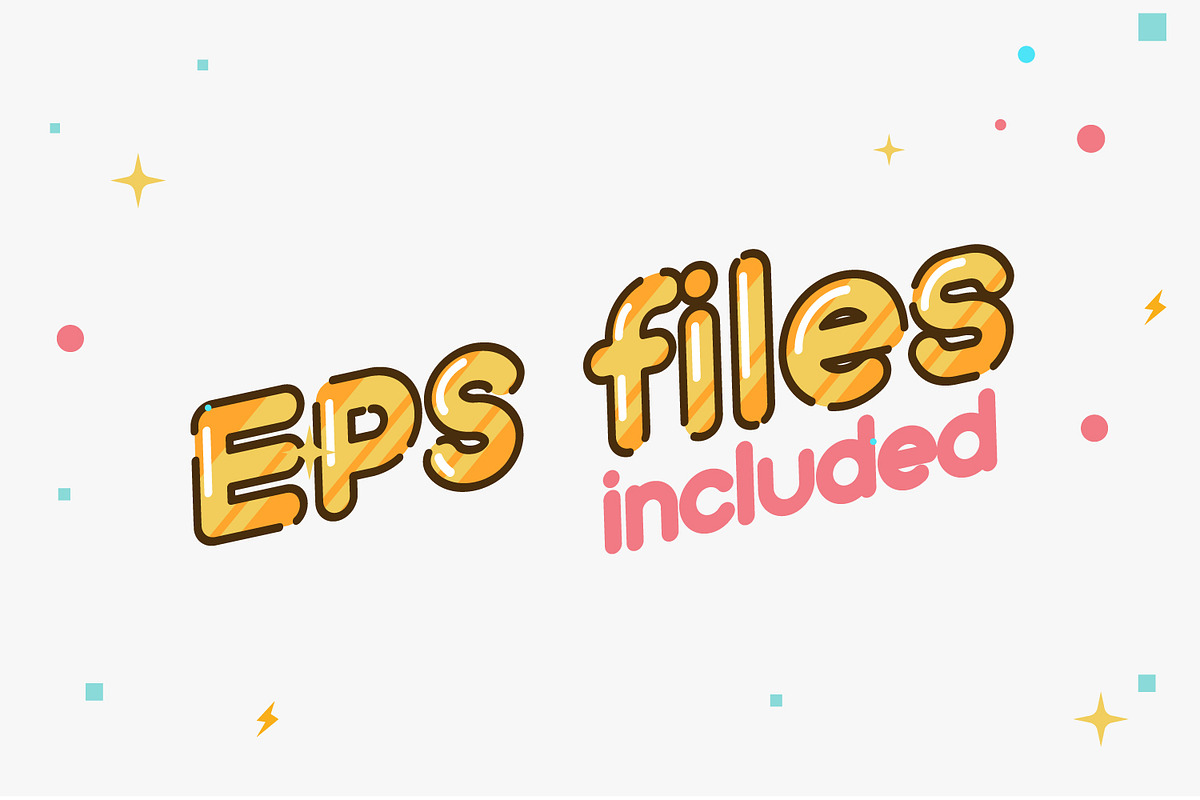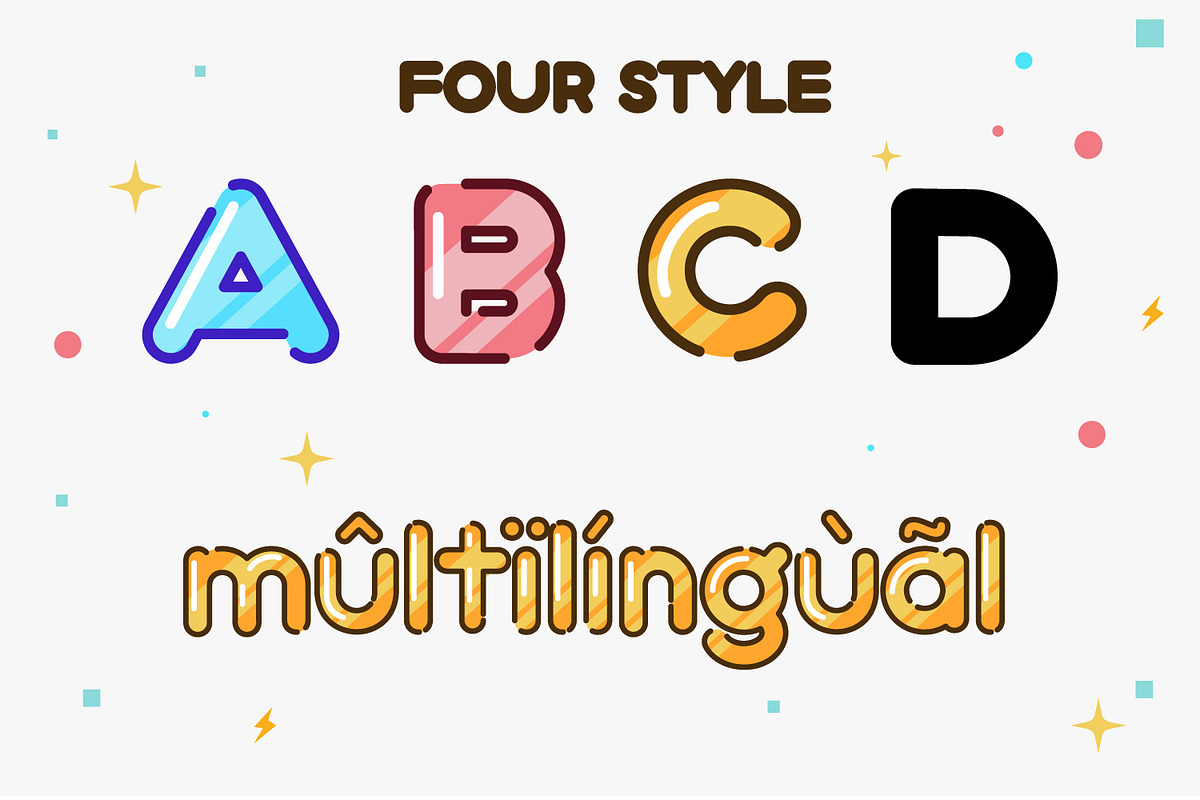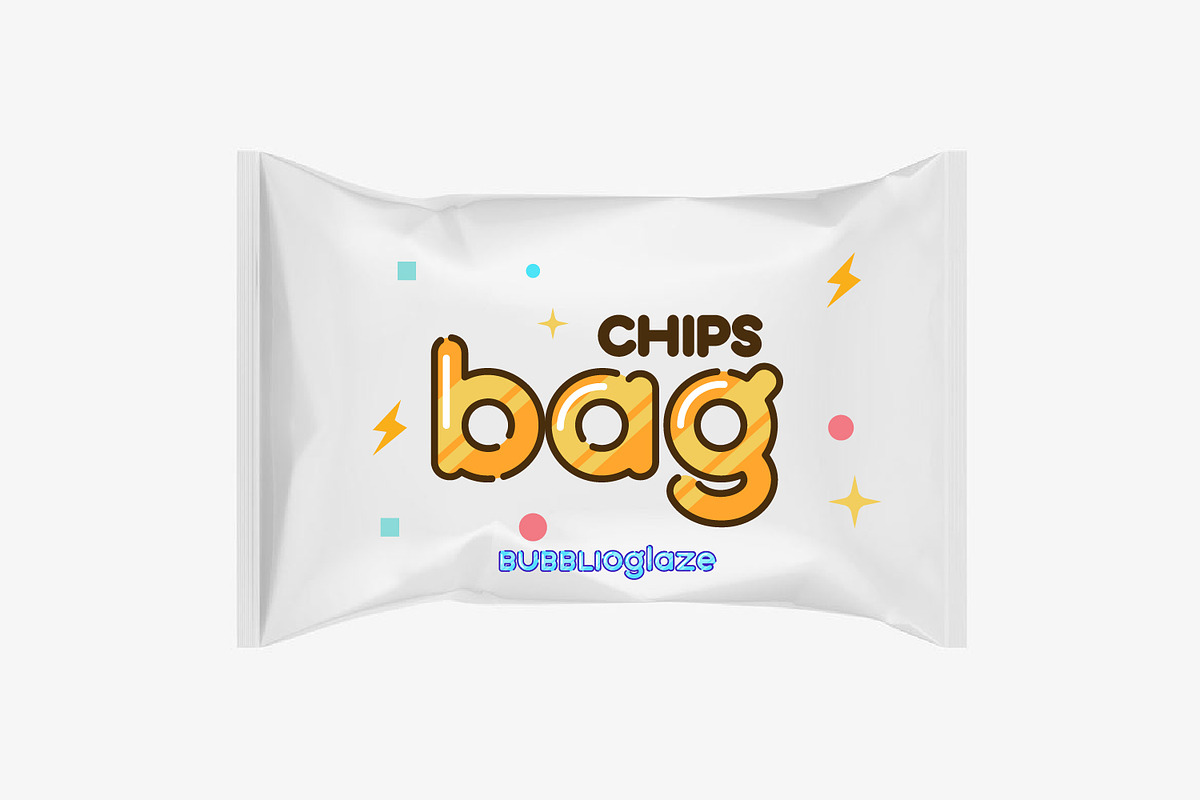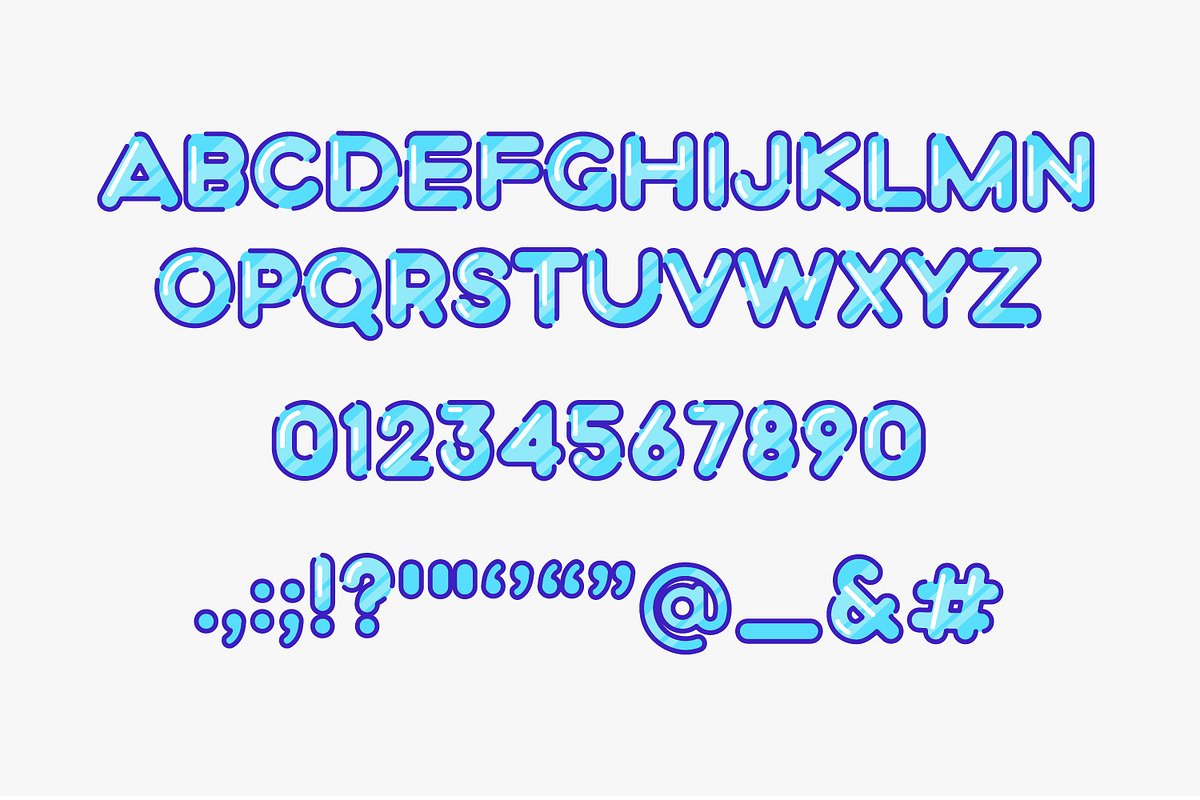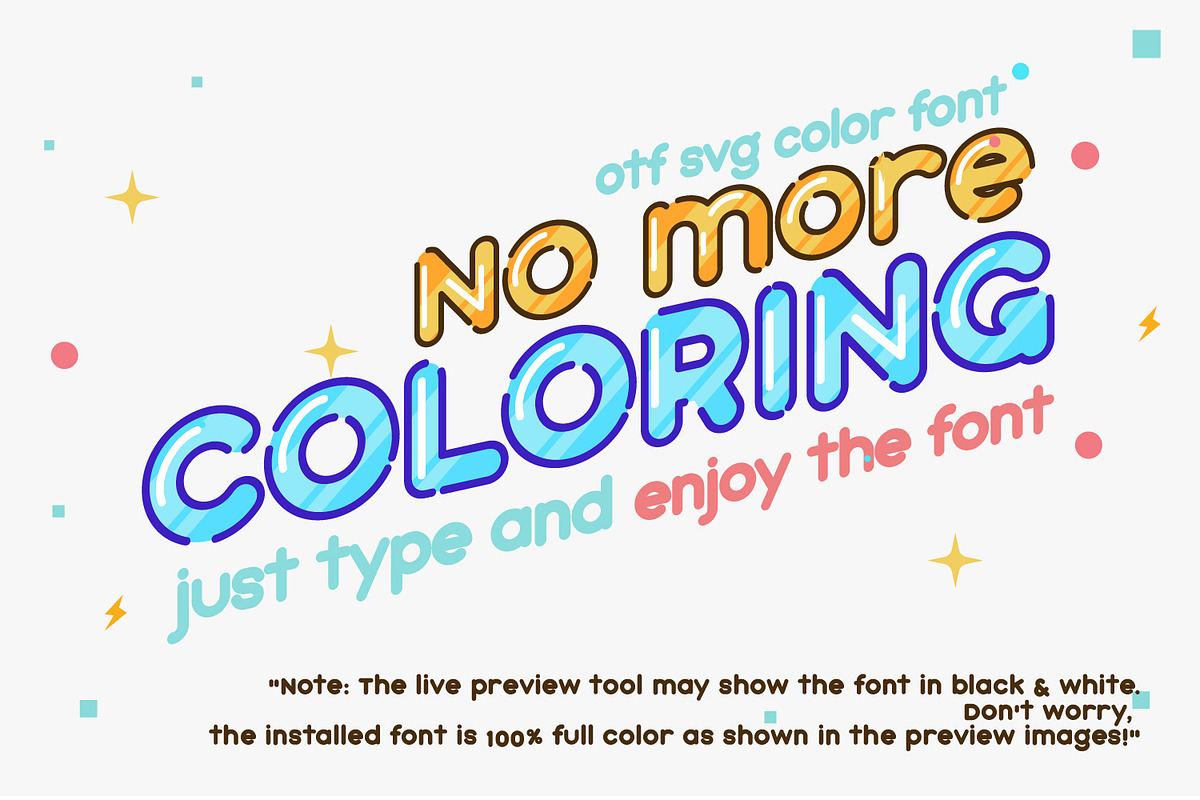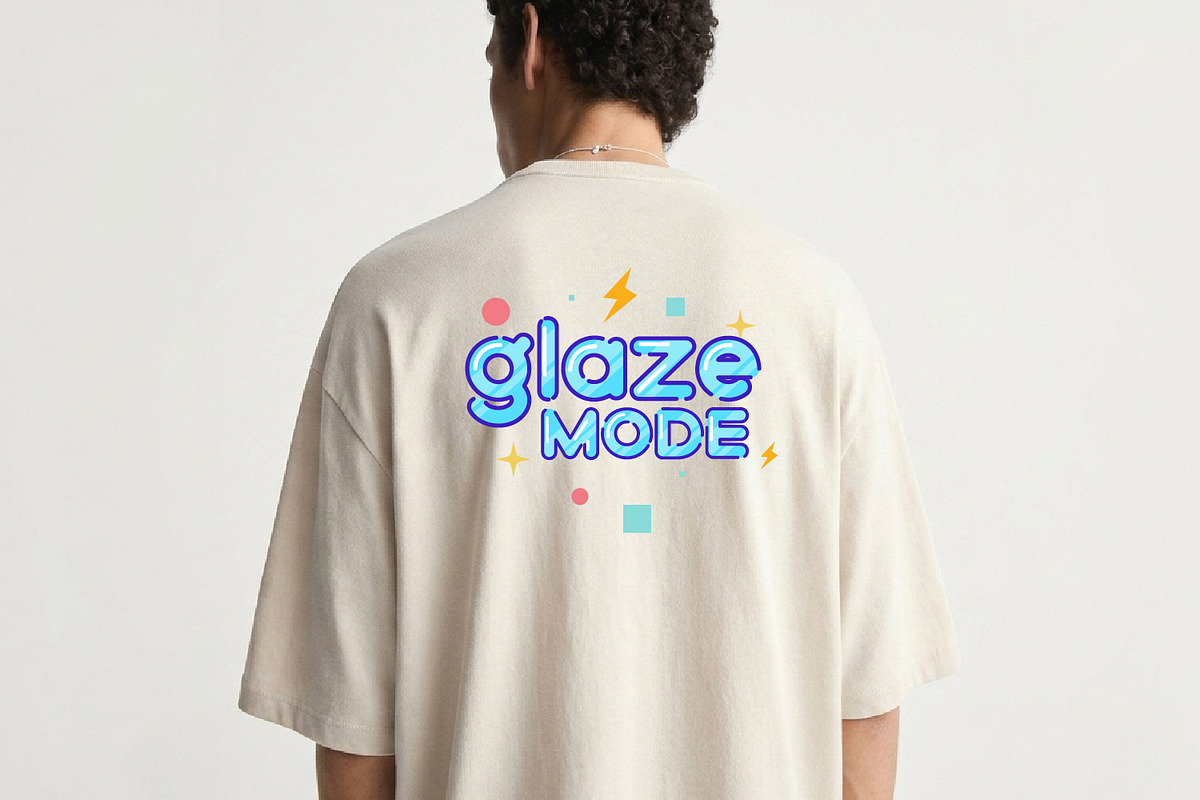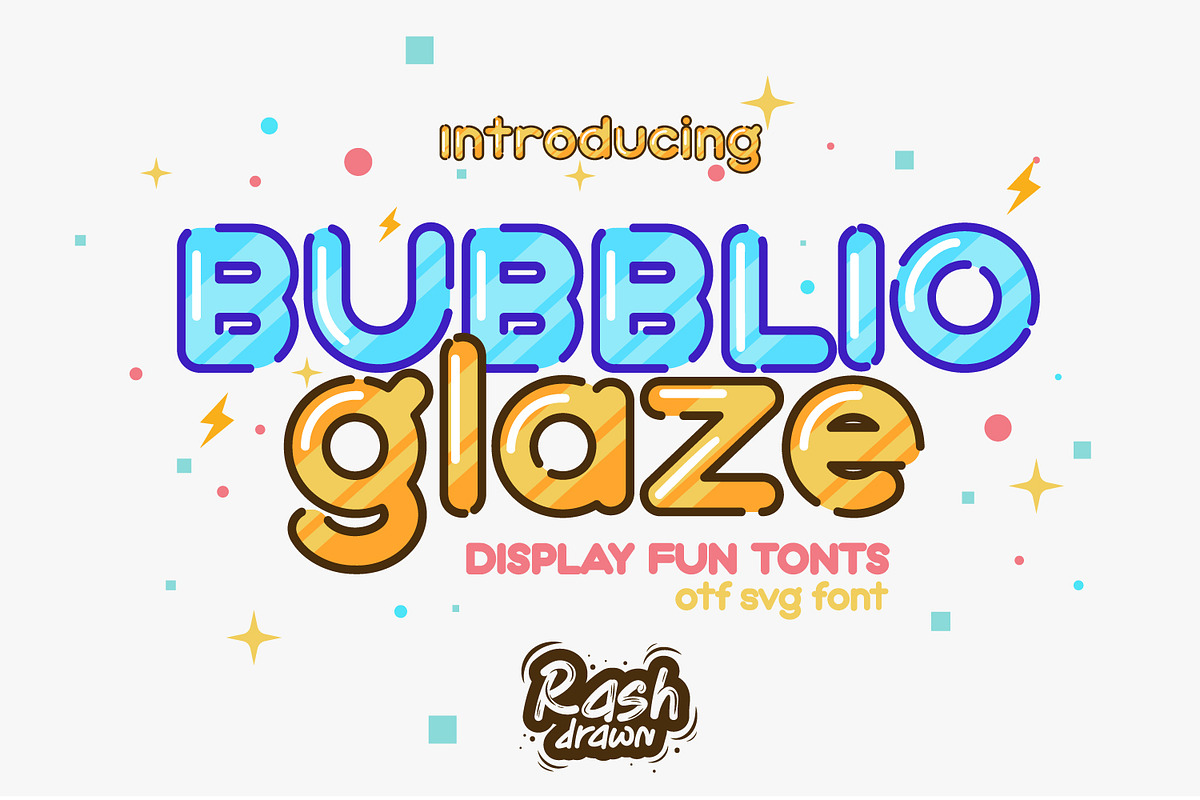
Bubblio Glaze – Playful Bubble Displ
Say hello to Bubblio Glaze, a fun and eye-catching bubble display font designed to bring joy, color, and personality into your designs. With its soft rounded shapes, bold outlines, and sweet glaze-inspired style, this font is perfect for playful and modern projects.
Whether you're working on branding, packaging, social media, or kids-related designs, Bubblio Glaze delivers a cheerful and standout look instantly.
🍭 Why You'll Love It Cute, bold, and highly readable Unique bubble + glaze style Perfect for fun and modern branding Eye-catching in both digital and print Great for kids, snacks, posters, and merch 🎨 Font Features Uppercase & Lowercase letters Numbers & Punctuation Multilingual Support Smooth rounded edges with outline style Fun and playful character design 🌈 Special Bonus Color SVG Font included (No need to color manually!) Ready-to-use vibrant style — just type and enjoy Works great for eye-catching headlines 📦 What’s Included OTF Font TTF Font SVG Color Font EPS Files Multiple Style Variations 💡 Perfect For Kids branding Snack & food packaging Posters & flyers T-shirt & merchandise Social media content Stickers & fun designs ⚠️ Note
🍬 Make Your Design Pop!
Add a sweet, playful touch to your next project with Bubblio Glaze — where bold meets fun!